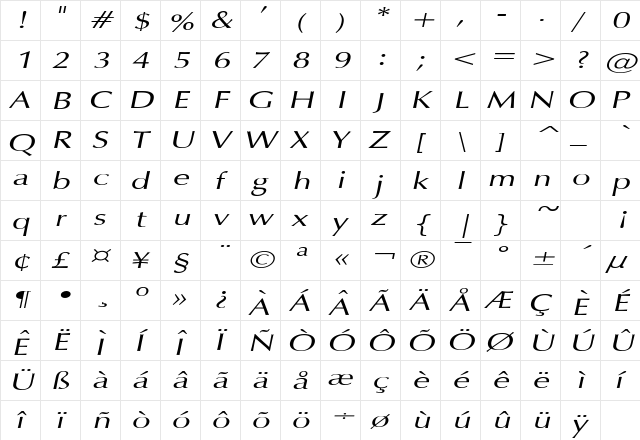
EternaExtended Oblique
Design Context for EternaExtended Typeface
EternaExtended is a composed and adaptable typeface that performs quietly and consistently across a wide range of design contexts. The slanted form adds forward momentum and visual energy.
Pro Tip: Use EternaExtended for emphasis, pull quotes, and subheadings where its slanted energy can add rhythm to the layout.